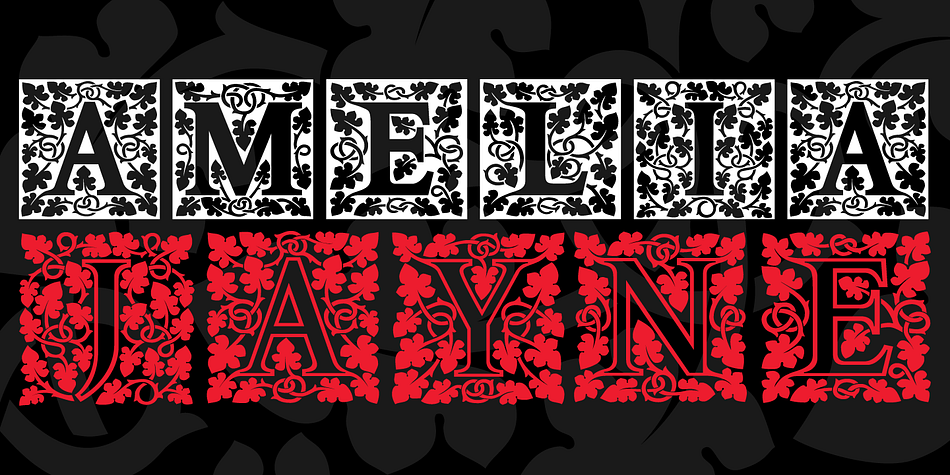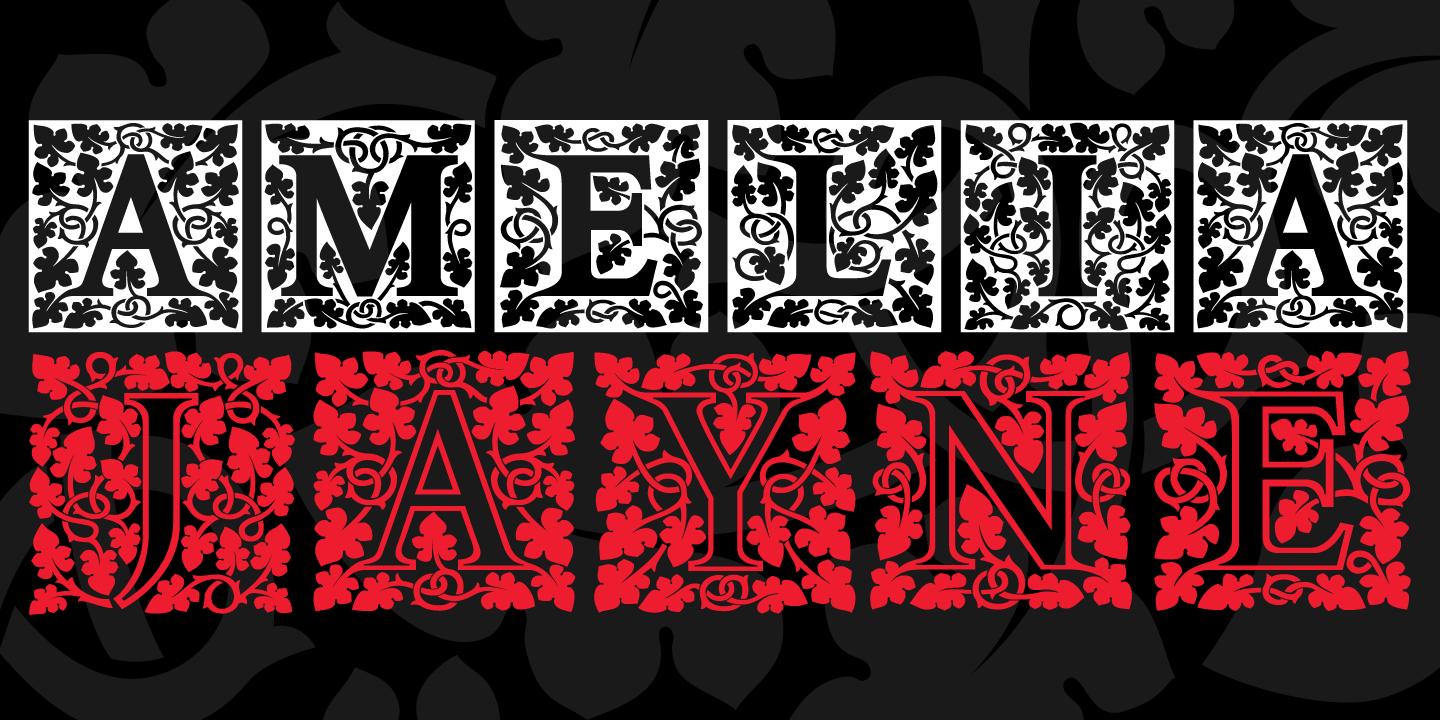
P22 Amelia Jayne
Designed by Ted Staunton, P22 Amelia Jayne is a monograms and display serif font family. This typeface has seven styles and was published by P22 Type Foundry.
Amelia Jayne is Ted Staunton’s updated revision and expansion of his own Amelia decorative cap font. Amelia Jayne started as a Roman font to accompany the Amelia initials but has taken on a new life as a Pro Roman font with small caps and several variations of new matching initial companion fonts.
Designer Ted Staunton